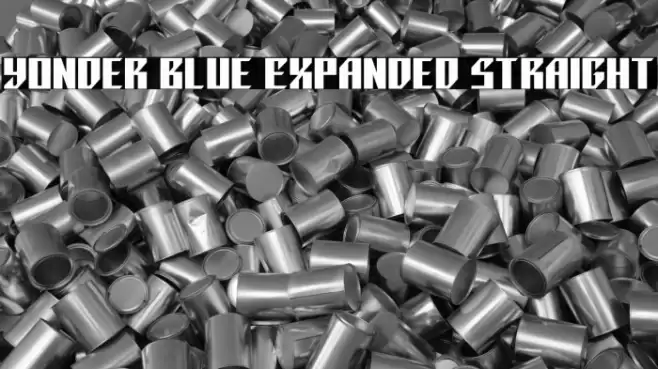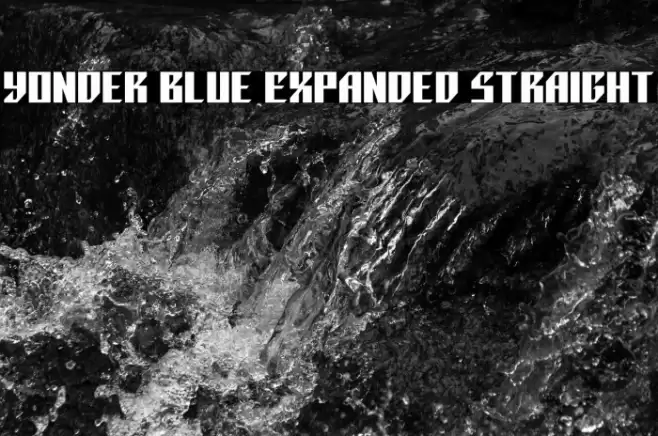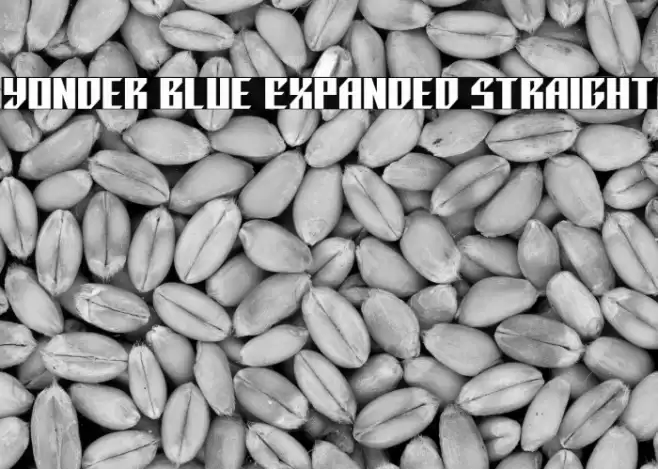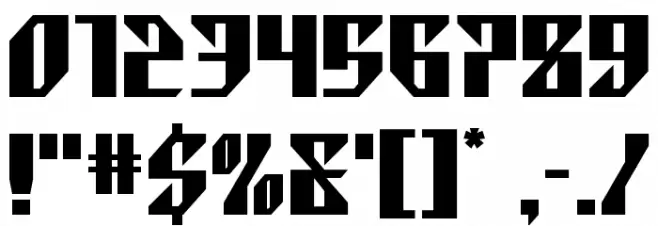
Yonder Blue Expanded Straight Font
Yonder Blue Expanded Straight Description
This font features a bold and geometric design with sharp angles and a distinct, futuristic appearance. The characters are constructed with straight lines and angular cuts, giving them a unique and edgy look. The uppercase and lowercase letters maintain a consistent style, while the numbers and special characters complement the overall design. The font's expanded width and strong presence make it ideal for attention-grabbing headlines and display purposes. Its modern and innovative style is perfect for projects that require a bold statement.
A bold, geometric font with sharp angles and an expanded width, ideal for modern designs from Regular fonts.
- Proposed Projects: Perfect for branding, posters, video game graphics, and any project needing a futuristic or edgy aesthetic.